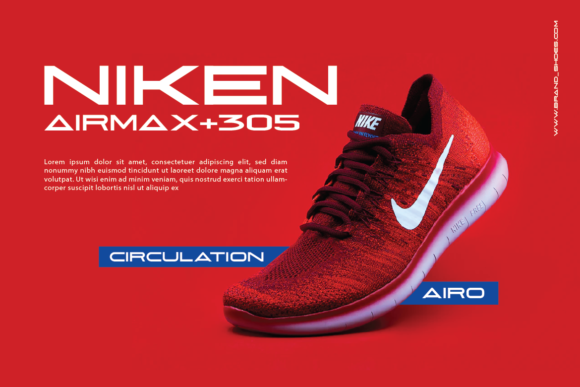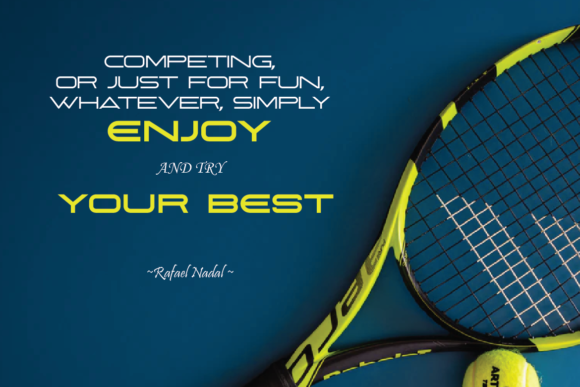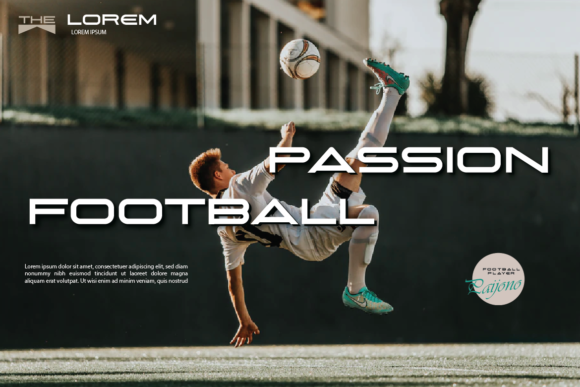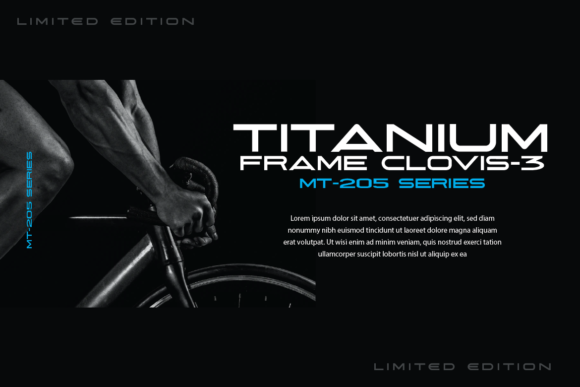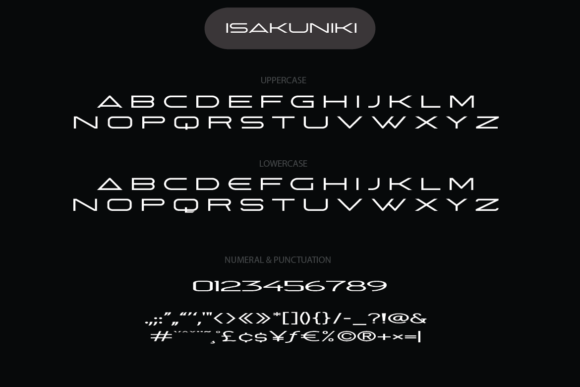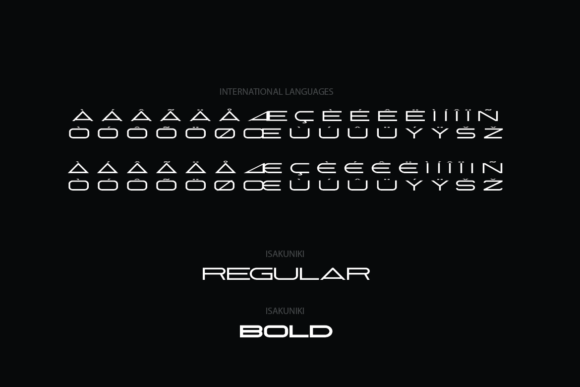
Introduction to Isakuniki Font Font
Fonts play a crucial role in design, and the Isakuniki Font font is a typeface that brings both character and versatility to any project. Whether you’re working on a branding project, a website, or a print design, the Isakuniki Font font offers a unique style that can elevate your work.
Isakuniki is a simple and sharp looking display font, that will truly inspire your works.
Key Features of Isakuniki Font Font
Why Choose Isakuniki Font Font?
The Isakuniki Font font is more than just a typeface – it’s a design tool that helps you communicate your message with style and clarity. Its unique character set and versatile design make it suitable for a wide range of applications, from elegant invitations to bold headlines.
With its carefully crafted letterforms and balanced proportions, the Isakuniki Font font ensures readability and visual appeal across all mediums.
What makes Isakuniki Font font special?
The Isakuniki Font font stands out with its unique design, exceptional readability, and versatility across various design applications.